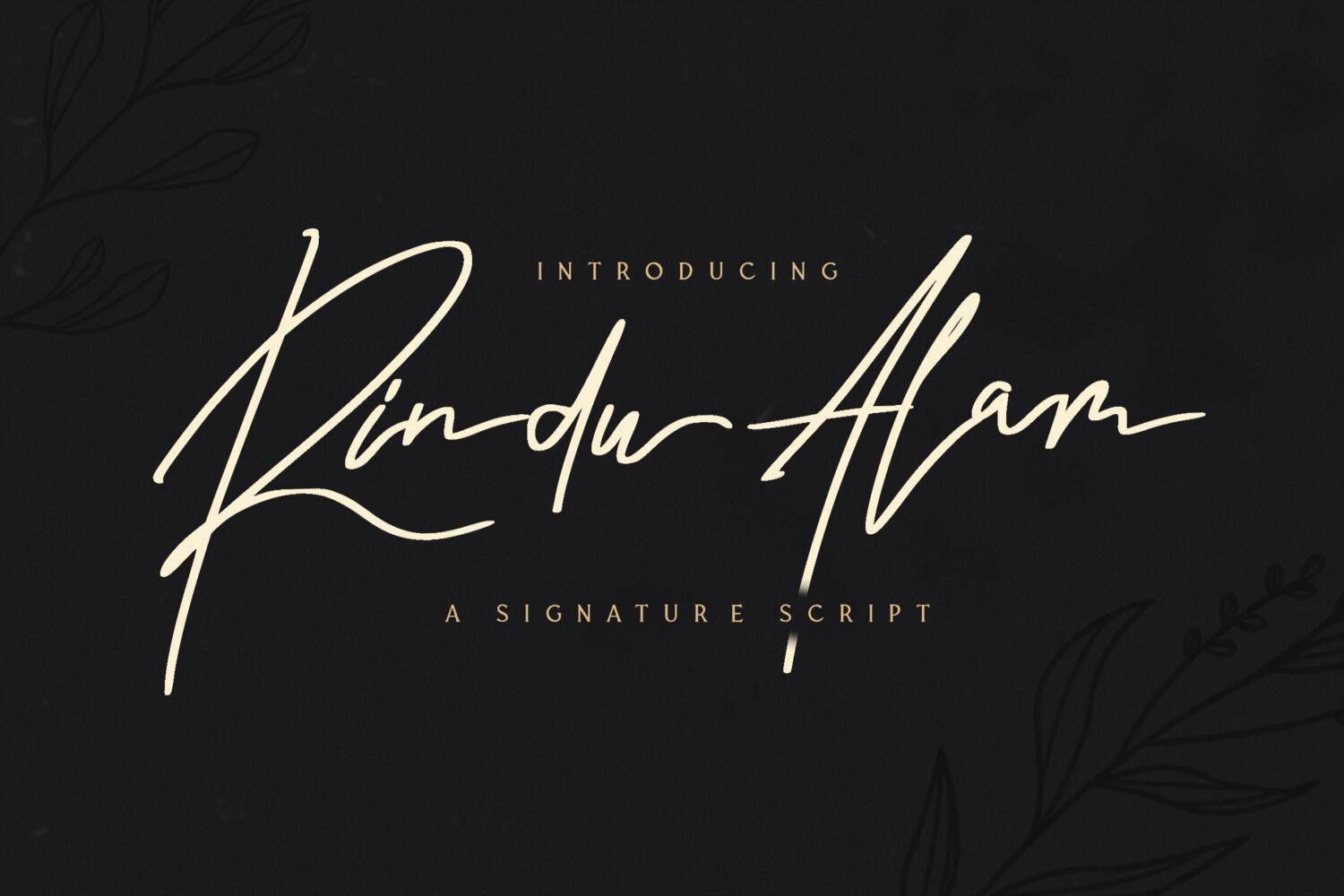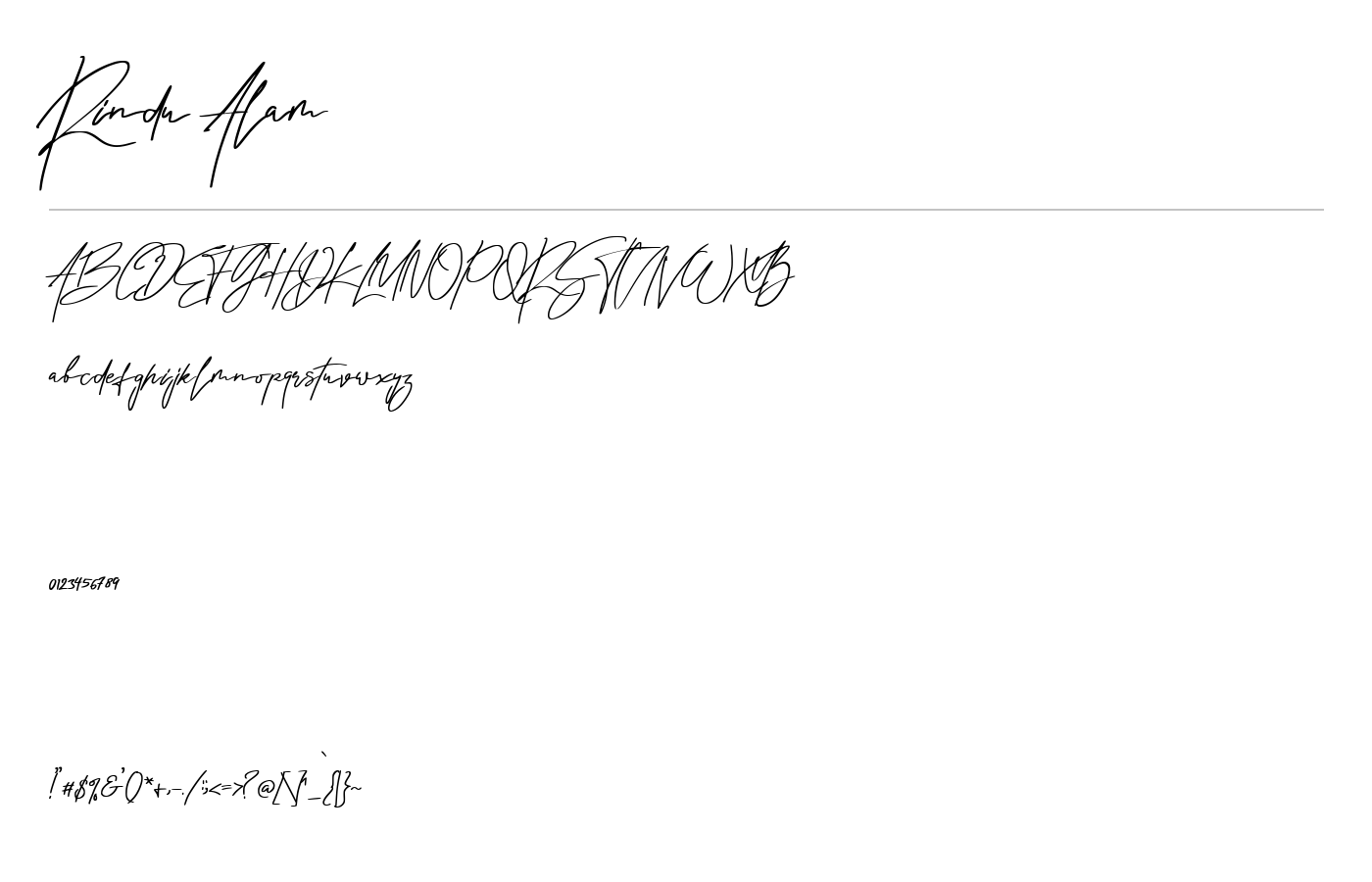
Rindu Alam is a delicate, handwritten script font characterized by its fine, flowing strokes and elegant, slightly chaotic letterforms that evoke a personal, artistic touch. Its light weight and fluid style make it ideal for creative branding, invitations, and expressive design projects where a sophisticated yet intimate feel is desired. This font works beautifully in headlines or logos that seek to convey elegance with a natural, humanistic vibe.
Rindu Alam Font
About Rindu Alam Font